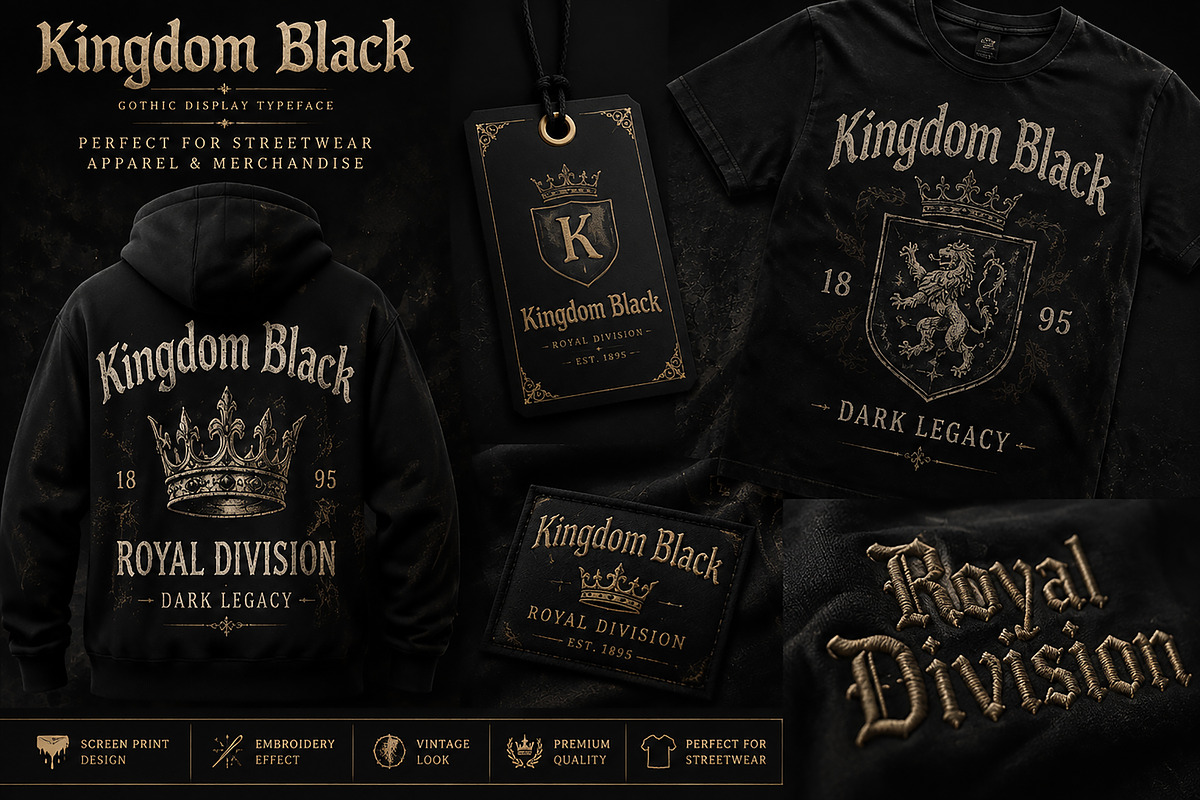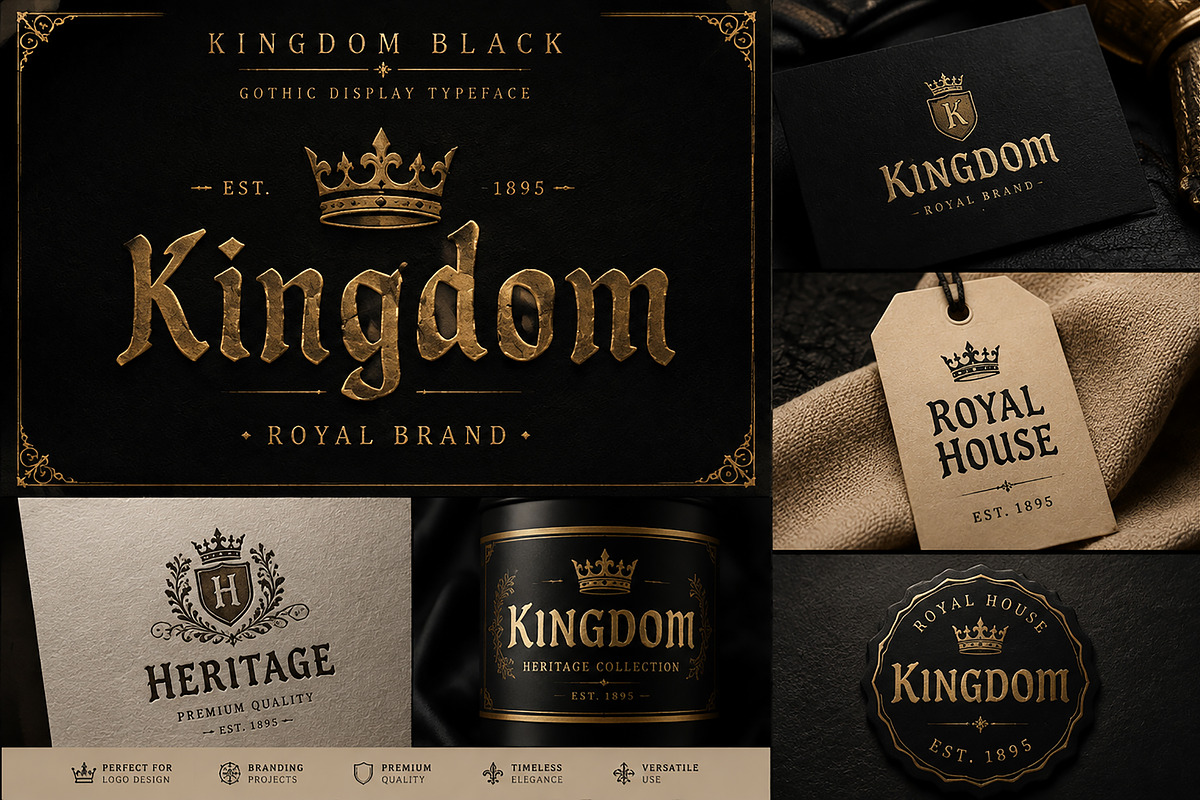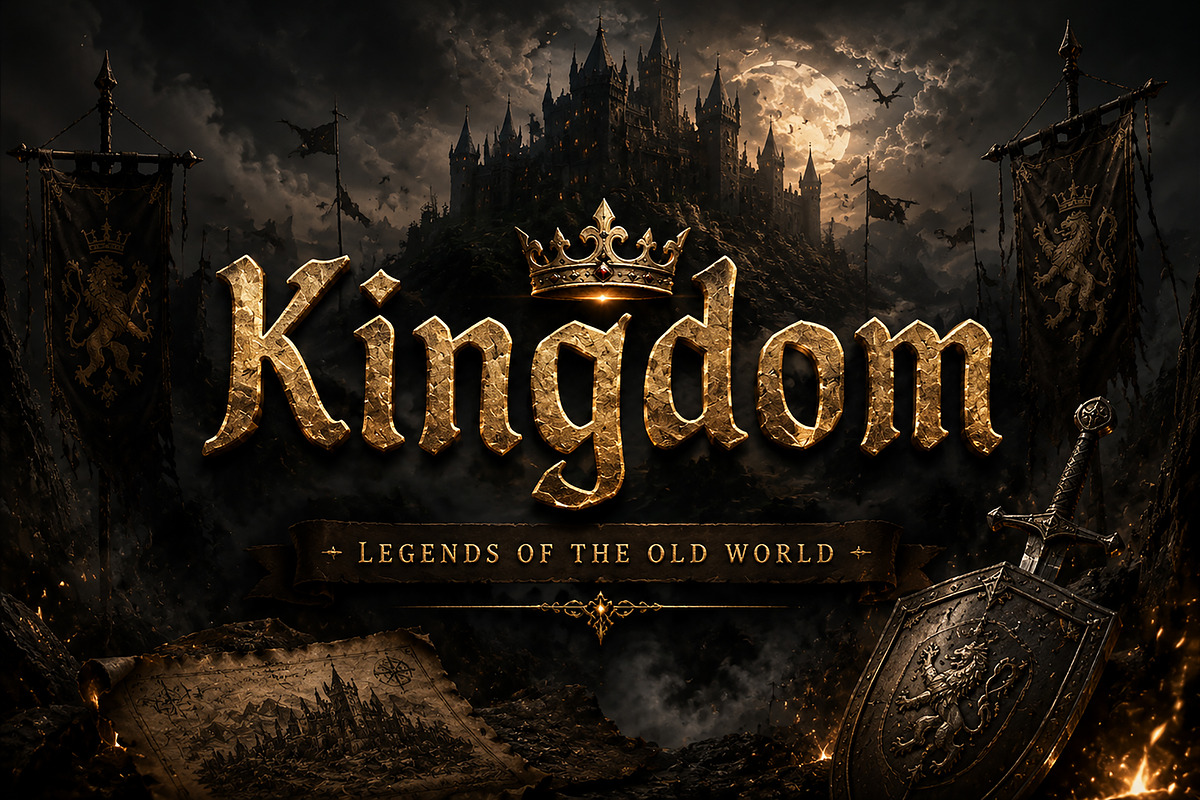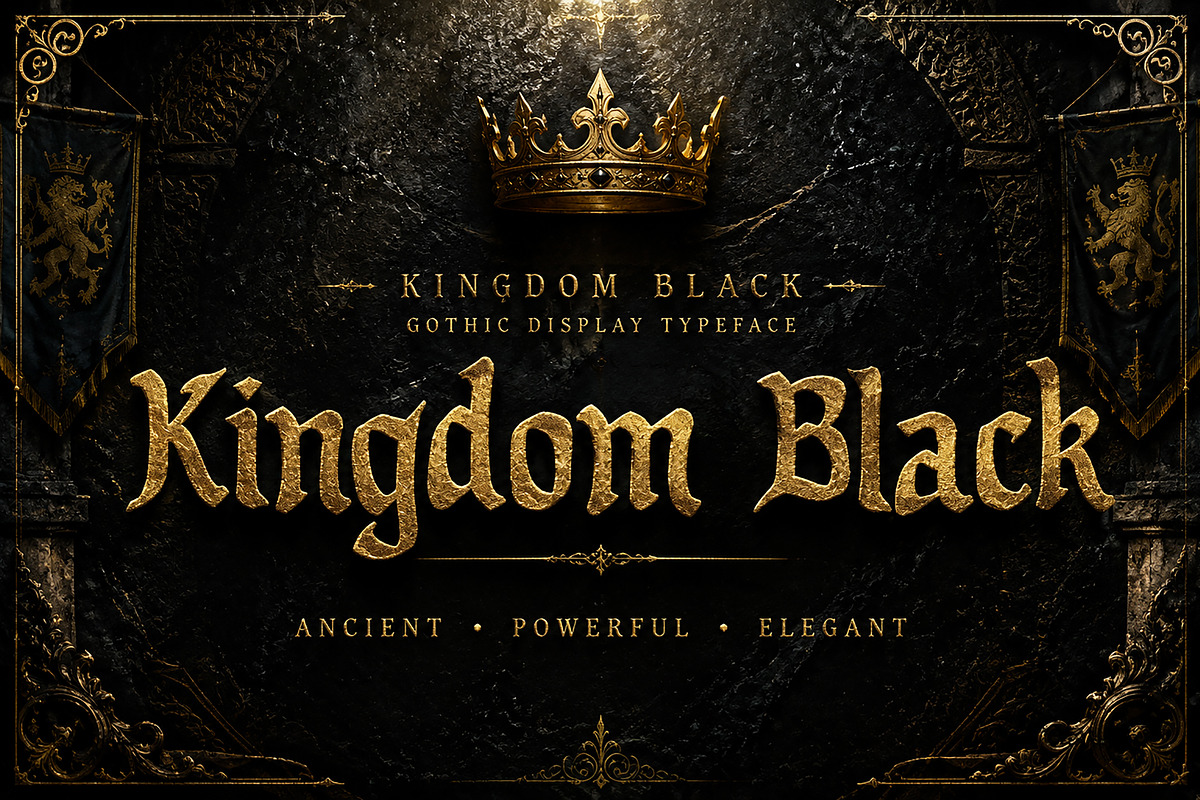
Kingdom Black – Gothic Blackletter
Kingdom Black – Gothic Blackletter Display Font
Step into a world of ancient royalty and timeless power with Kingdom Black, a bold Gothic Blackletter display font inspired by medieval heritage, royal emblems, and dark fantasy aesthetics.
Designed with strong, dramatic strokes and classic blackletter characteristics, Kingdom Black brings a luxurious historical feeling to your creative projects. Its powerful appearance makes it perfect for designs that need authority, elegance, and a premium vintage atmosphere.
This typeface is ideal for logo design, branding, apparel, tattoo artwork, book covers, album covers, posters, game titles, badges, packaging, and luxury merchandise designs.
Whether you are creating a medieval-inspired brand, fantasy artwork, streetwear collection, or a premium identity, Kingdom Black adds a unique royal character to every project.
✔ Gothic Blackletter Display Typeface
✔ Strong Medieval & Royal Style
✔ Perfect for Luxury Branding
✔ Vintage & Dark Fantasy Inspired Design
✔ Suitable for Logos and Headlines
✔ Great for Posters, Covers & Merchandise
✔ High-Impact Display Font
• Logo & Brand Identity
• Luxury Branding
• Streetwear & Apparel Design
• Tattoo Designs
• Gaming & Fantasy Projects
• Movie & Book Titles
• Album Covers
• Packaging Design
• Posters & Flyers
• Labels & Badges
Kingdom Black Font
✓ Professional Display Typeface
Font Name: Kingdom Black
Style: Gothic / Blackletter / Medieval Display Font
Bring the strength of medieval kingdoms into your designs with Kingdom Black — a powerful blackletter font crafted for creators who want their work to feel bold, historic, and unforgettable.